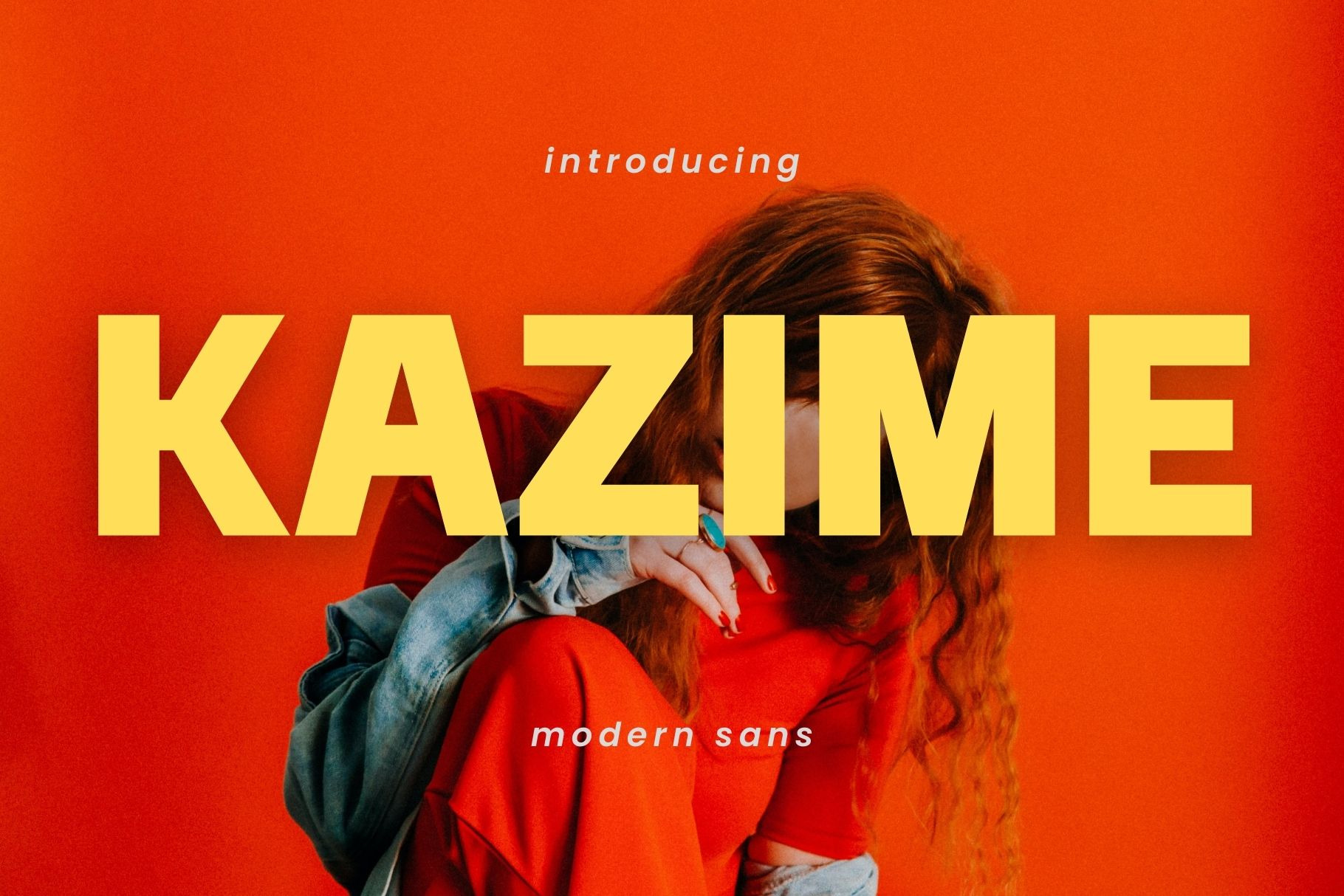
Kazime - Modern Sans Typeface
Introducing 'Kazime' Font:
A beautiful series of letters is encapsulated in this 'Kazime' font. Neat lettering is perfect for writing needs that are modern and pleasing to the eye, there is a Modern impression but still looks Elegant when used for writing. Tidiness in the manufacture of each letter, is our top priority. You can have fun and be creative using this font product we made, because the results will definitely be very satisfying.
Ideal for:
- Modern Designs
- Elegant Creations
- Advertising Campaigns
- Versatile Applications
- Packaging Design
- Social Media
- Ready for Creative Expression
- Immaculately Crafted Letters